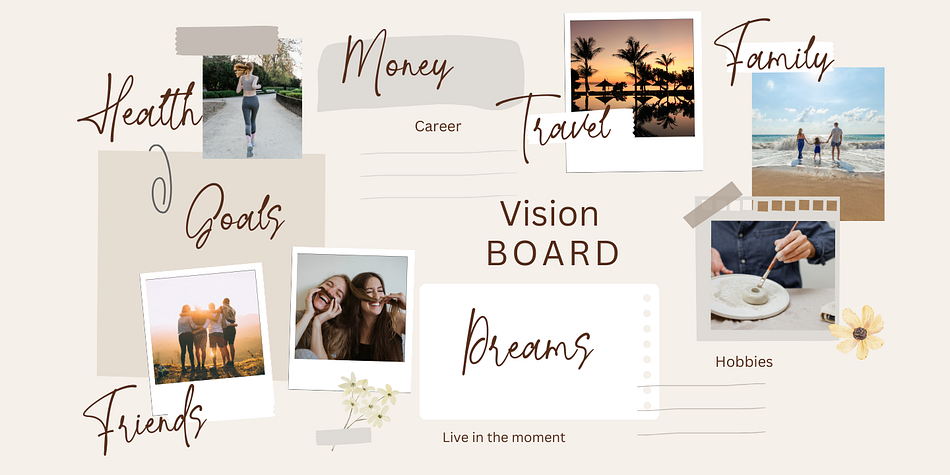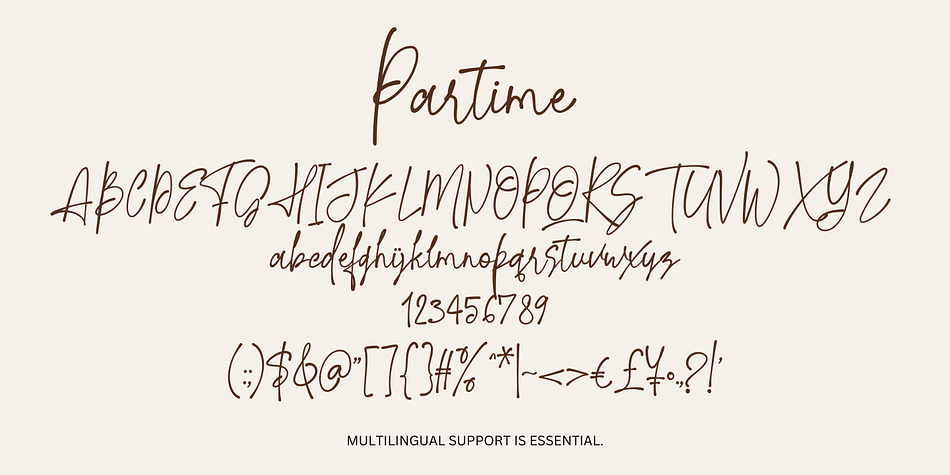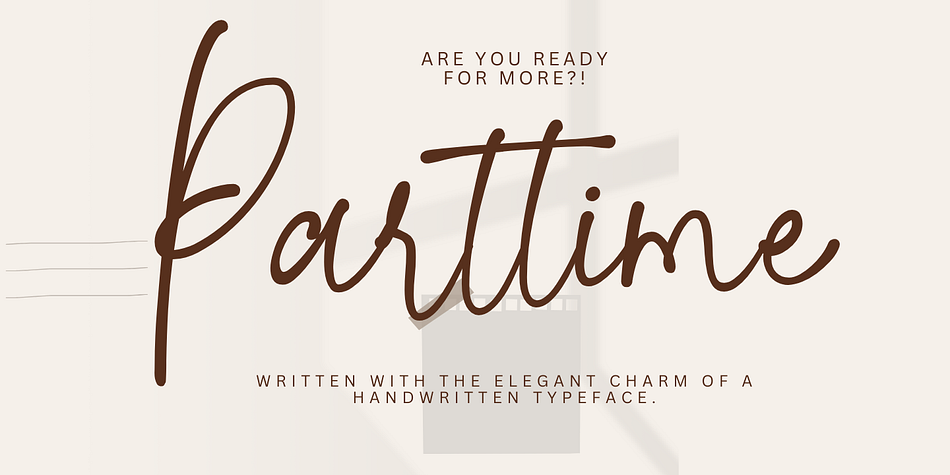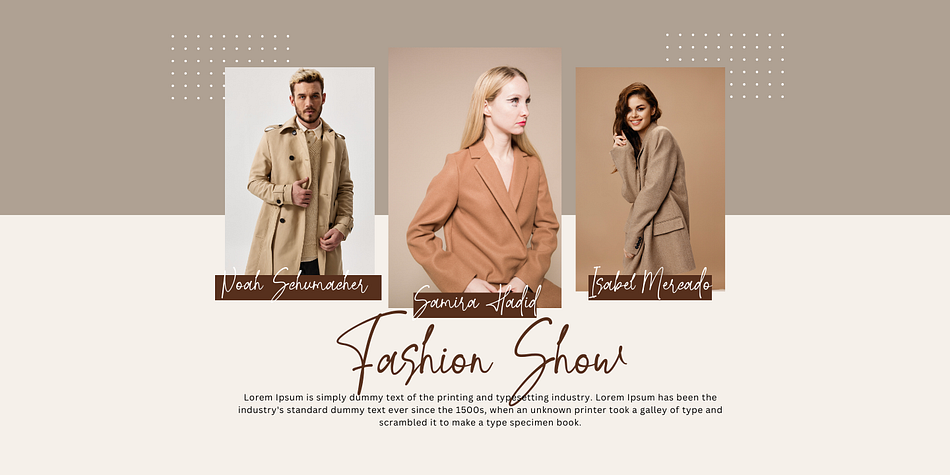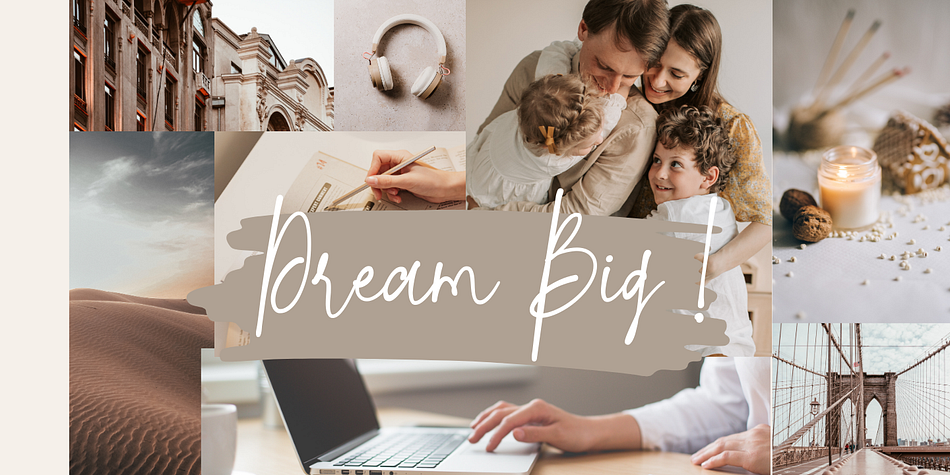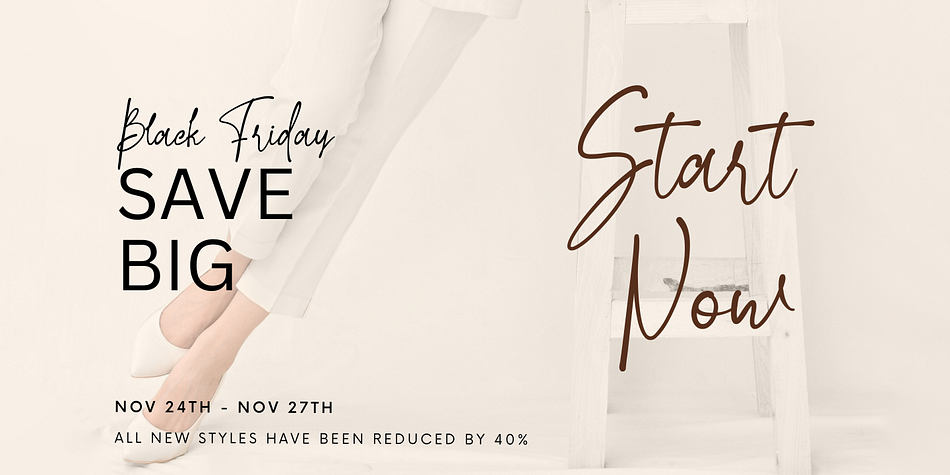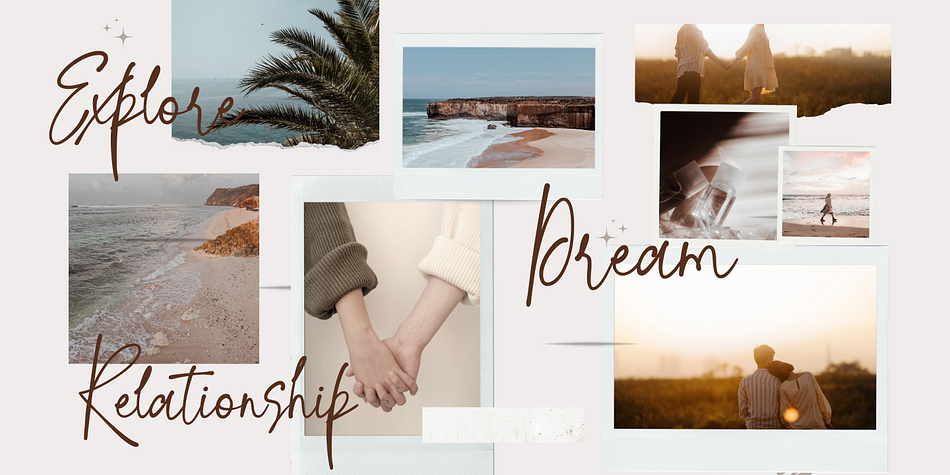
Parttime
Parttime is a modern calligraphy font family published by Gatype.
Parttime is a stylish and modern handwritten font that adds a creative touch to your projects. This font is perfect for logos, invitations, stationery, wedding designs, social media posts, ads, product packaging, product designs, labels, photography, watermarks, special events, and more.
With a full range of uppercase and lowercase letters and multilingual symbols, Parttime lets you create stunning work in multiple languages.